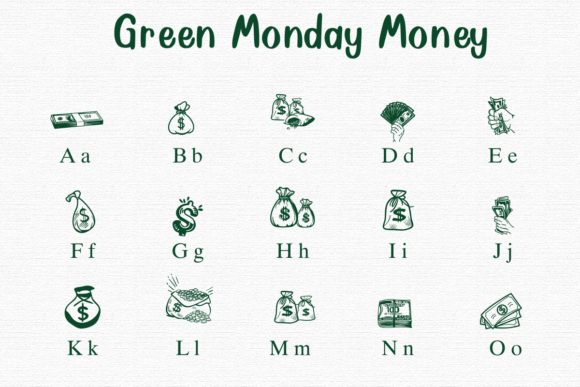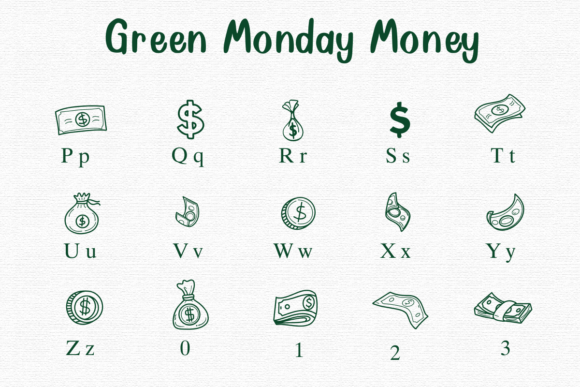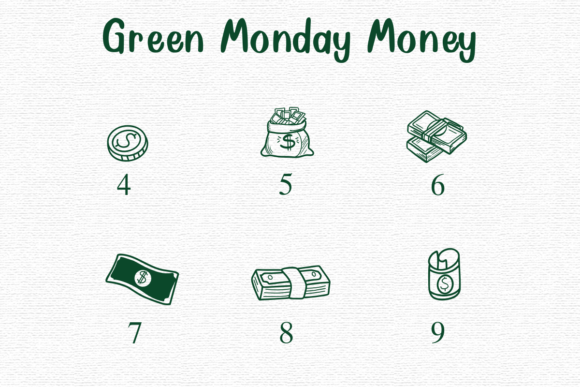
Introduction to Green Monday Money Font
Green Monday Money is a fun dingbat font filled with cute symbols of money, like coins, bills, and dollar signs.
It’s perfect for adding a playful touch to your designs and making them look money-themed .
Key Features of Green Monday Money Font